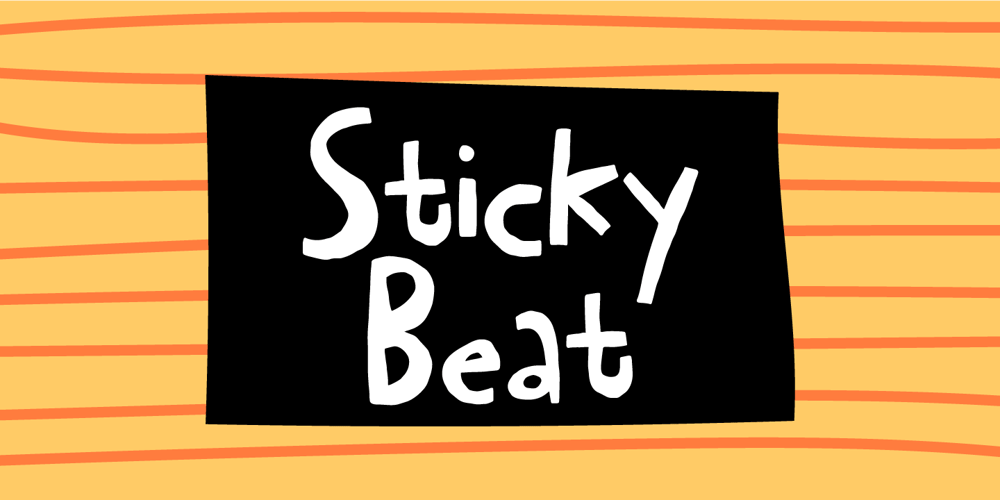
Sticky Beat Font Family was designed by Jakob Fischer and published by Bogstav. Sticky Beat contains 2 styles and family package options. Yes, it’s handmade – and yes, it’s super funky!Sticky Beat is quite useful for everything that needs a quirky approach, and at the same time not overdoing It.